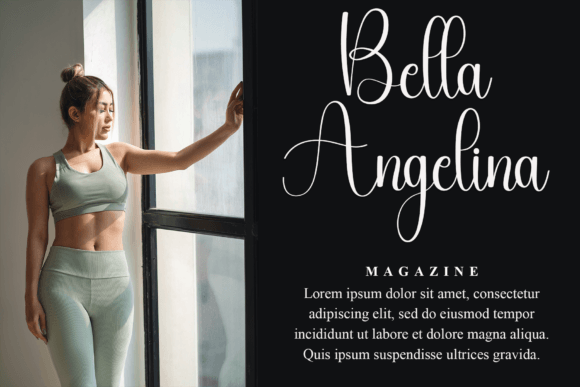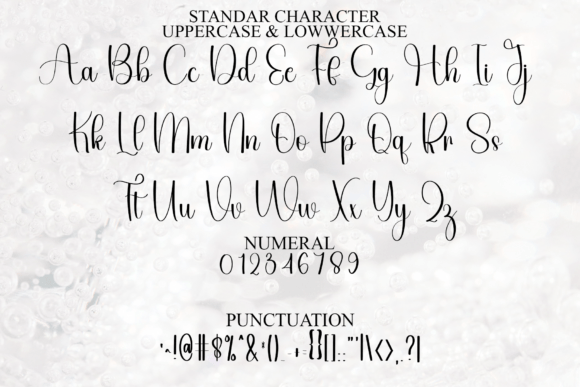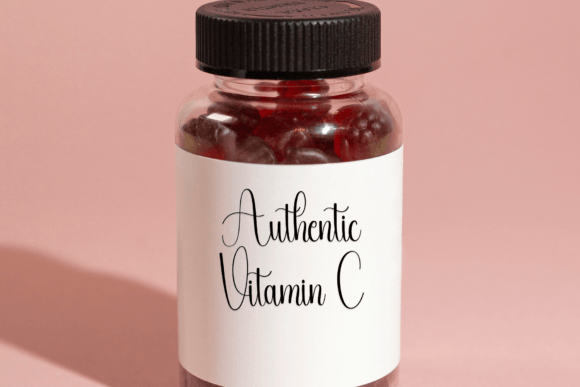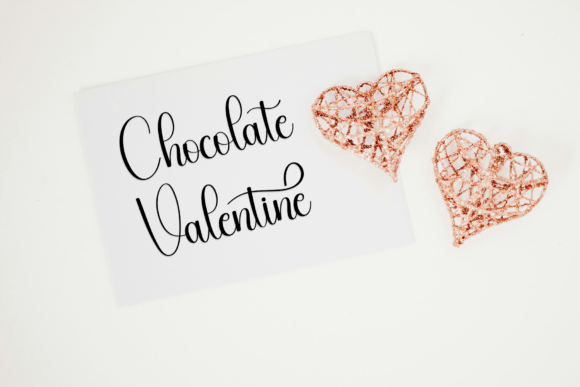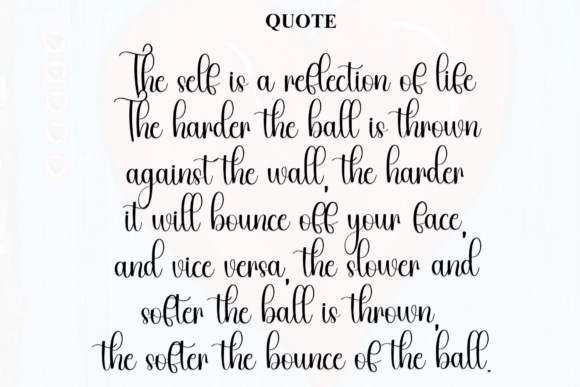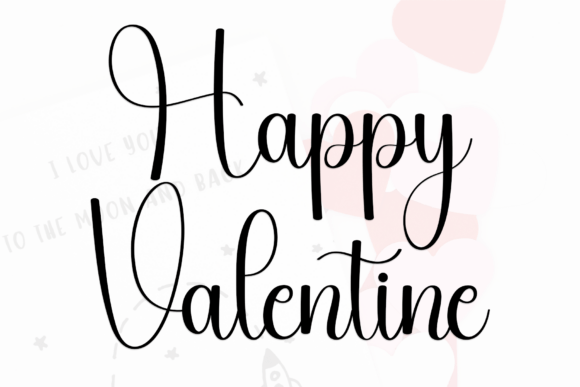
Introducing Blanket Valentine Font: A Unique and Versatile Typeface for Designers and Crafters
In the world of typography, a font can make or break a design project. That’s why designers and crafters are always on the lookout for unique and eye-catching typefaces that can elevate their work. One such font that has caught our attention is the Blanket Valentine Font. Designed with a soft, unique touch, this beautiful font is perfect for a wide range of creative projects, from crafts to digital designs.
What Makes Blanket Valentine Font Special?
The Blanket Valentine Font is a distinctive typeface that stands out from the crowd. Its soft, rounded strokes give it a special character that makes it both meaningful and versatile. Whether you’re working on a design project, crafting a handmade card, or creating a digital artwork, this font is sure to add a touch of personality to your work.
One of the key features of the Blanket Valentine Font is its unique character set. With a wide range of characters, you can create complex and visually appealing designs that are sure to capture the attention of your audience. From simple and elegant designs to more complex and intricate ones, this font is perfect for a wide range of creative projects.
Versatility and Compatibility
Designers and crafters can use the Blanket Valentine Font to create a wide range of products, including:
- Digital designs, such as social media graphics, blog posts, and website headers
- Handmade crafts, such as cards, gift tags, and scrapbook pages
- Print-on-demand products, such as t-shirts, mugs, and phone cases
- Stationery and paper products, such as notebooks, journals, and stickers
Why Choose Blanket Valentine Font?
So why choose the Blanket Valentine Font for your design projects? Here are just a few reasons:
- Unique and eye-catching design: The Blanket Valentine Font has a distinctive and eye-catching design that is sure to capture the attention of your audience.
- High-quality characters: The font has a wide range of high-quality characters, making it perfect for complex and visually appealing designs.
Tips for Using Blanket Valentine Font
Here are a few tips for using the Blanket Valentine Font in your design projects:
- Experiment with different sizes and colors: The Blanket Valentine Font looks great in a variety of sizes and colors, so don’t be afraid to experiment and find the perfect combination for your design.
- Pair it with other fonts: The Blanket Valentine Font pairs well with other fonts, so try combining it with a bold or script font to add contrast and interest to your design.
- Use it for headings and titles: The Blanket Valentine Font is perfect for headings and titles, as it’s eye-catching and easy to read.
The Blanket Valentine Font is a unique and versatile typeface that is perfect for designers and crafters. With its soft, rounded strokes and distinctive character set, this font is sure to add a touch of personality to your design projects. Whether you’re working on a digital design, handmade craft, or print-on-demand product, the Blanket Valentine Font is a great choice. So why not give it a try and see how it can elevate your designs?